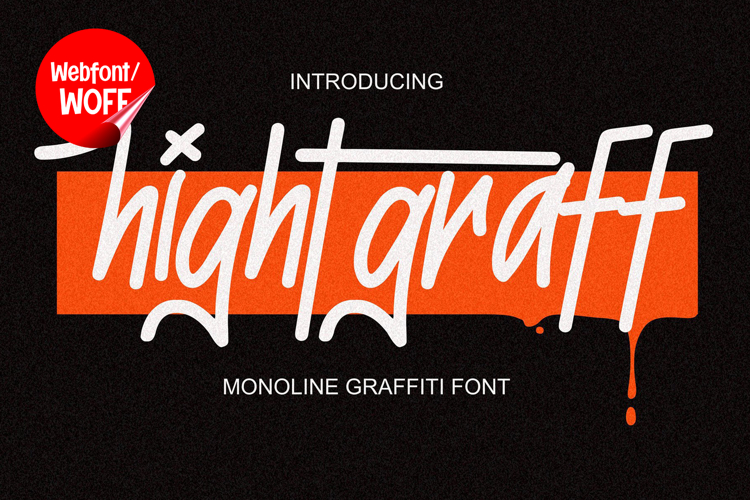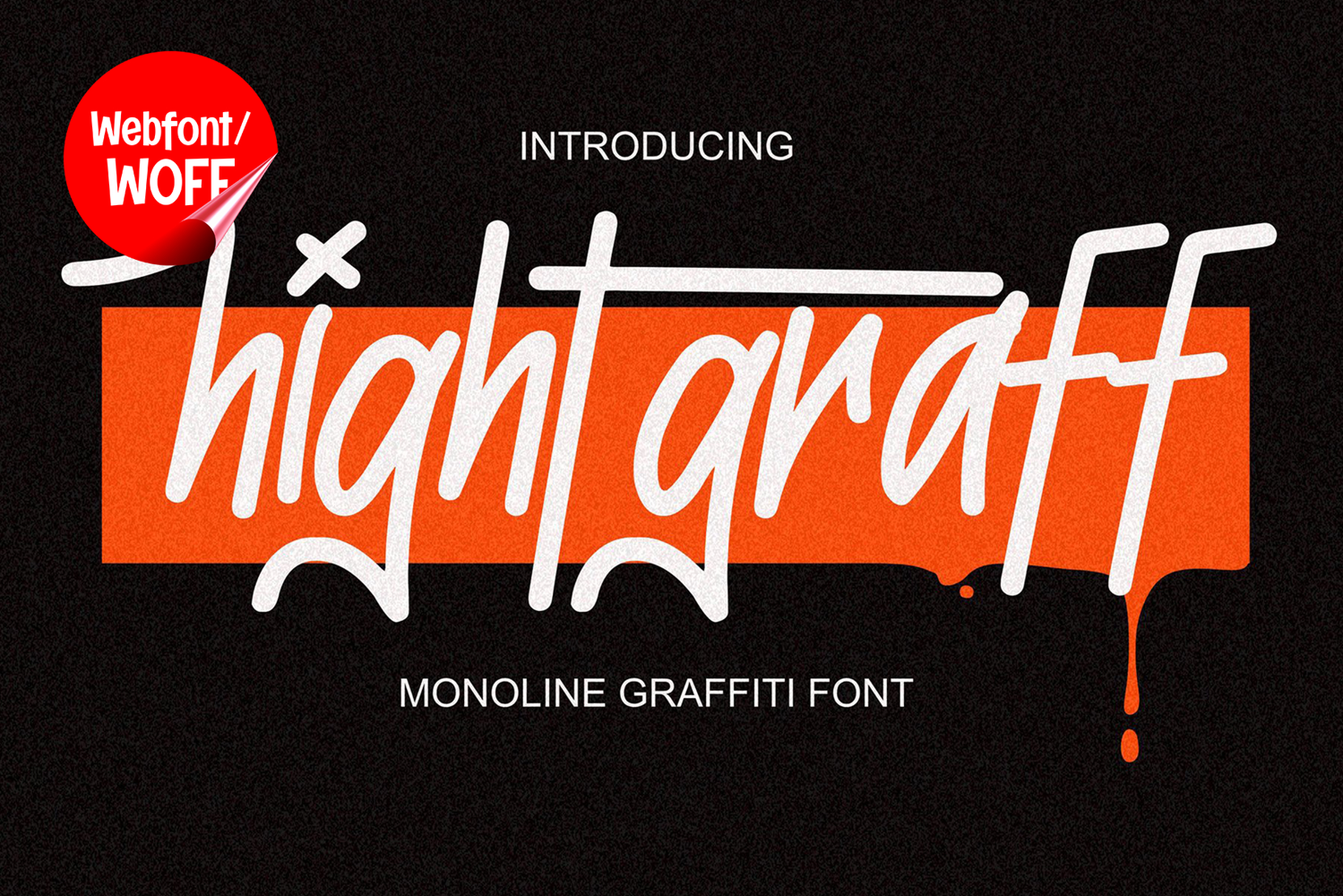
Hightgraff | Monoline Handwritten Graffiti Webfont
Hightgraff is a monoline handwritten graffiti webfont designed to deliver a clean yet expressive street-style look for modern website design. With its smooth single-line strokes and natural handwritten flow, this font captures the essence of graffiti tagging while maintaining a balanced and readable structure for digital use. It is an ideal choice for projects that require an urban aesthetic with a refined and modern touch.
Hightgraff includes a complete set of uppercase characters built with a monoline structure. The consistent stroke weight creates a smooth and cohesive appearance, while the handwritten style adds a natural and dynamic feel. These letterforms are well suited for headlines, banners, hero sections, and featured content that need a distinctive yet clean graffiti look.
In addition to letters, the font provides numbers and punctuation, allowing it to be used across a variety of website elements. It works effectively for short phrases, promotional text, navigation accents, and interface highlights. Each character follows the same monoline concept, ensuring a consistent visual identity throughout the design.
With multilingual support, Hightgraff includes a wide range of accented characters, making it suitable for international websites and global audiences. This allows content to be displayed clearly across different languages while maintaining the same graffiti-inspired style. It is a practical option for creative brands, agencies, and digital platforms.
The monoline handwritten graffiti style of Hightgraff makes it especially suitable for urban-themed websites, streetwear brands, music platforms, creative portfolios, and lifestyle content. Its clean stroke design offers a modern interpretation of graffiti, making it more adaptable for contemporary web layouts. The flowing lines add movement and energy without overwhelming the overall composition.
Despite its handwritten and expressive nature, Hightgraff is designed with readability in mind. The spacing and stroke consistency help maintain clarity, particularly in short text applications and display sizes. This makes it effective for both visual highlights and supporting elements within web interfaces.
Hightgraff is a webfont that combines graffiti inspiration with clean monoline precision. Its smooth lines, consistent structure, and expressive style create a distinctive look that enhances modern website design. For projects that require a stylish graffiti touch with clarity and versatility, Hightgraff offers a balanced and impactful typographic solution.